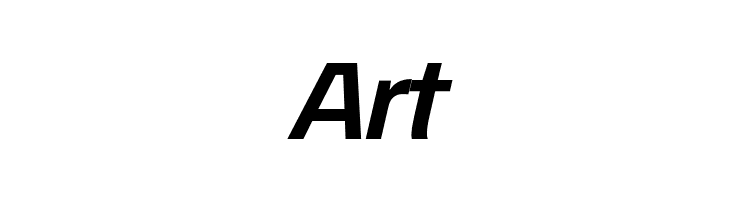
Ultra-condensed, bold font with high contrast and modern appeal.
A refined serif font with elegant, elongated strokes and a classic yet modern appeal.
A bold, playful handwritten font with thick, rounded strokes.
A dynamic, windswept font with sweeping curves and sharp edges.
A bold, wind-swept decorative font with a playful and dynamic style.
A dynamic, handwritten font with a casual and expressive style.
A dynamic, handwritten font with an expressive and casual style.
A graceful script font with fluid, interconnected cursive strokes.
A playful and casual handwritten font with irregular, dynamic strokes.
An elegant script font with flowing cursive letters and decorative swashes.
A rustic, handcrafted font with an organic, woodcut appearance.
A bold, cursive script font with a lively and energetic style.
A bold, italicized font with a dynamic, wind-swept appearance.
A bold, playful font with rounded, condensed characters and high contrast.
An ornate and decorative font with intricate swirls and flourishes.
An ornate, decorative font with whimsical swirls and curls.
A flowing, cursive script with elegant loops and swashes.
A playful, casual handwritten font with smooth, flowing curves and medium contrast.
A bold, angular font with a Gothic influence, perfect for decorative uses.
A bold, rounded font with smooth curves and consistent weight.
A bold, distressed font with a gothic, grunge-like style.
A bold, rounded font with a playful and friendly style.
A dynamic handwritten font with fluid strokes and a natural flow.
A bold, expressive script font with a dynamic, handcrafted feel.
A playful, rounded handwritten font with a casual vibe.
A bold, playful font with quirky, exaggerated characters.
A playful, bold outline font with geometric, block-like letters.
A bold, expressive brush script font with dynamic strokes and artistic flair.
A fluid and elegant script font with a modern, handwritten style.
A graceful and fluid script font with elegant, connected strokes.